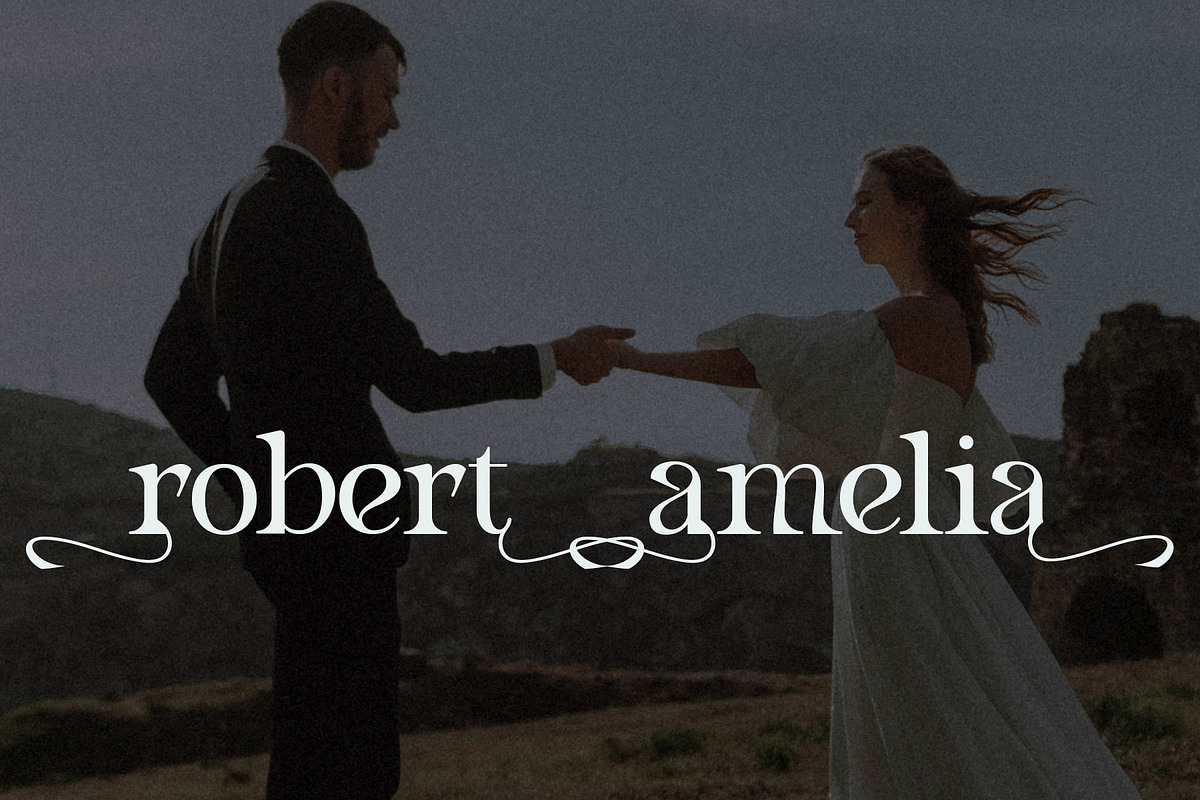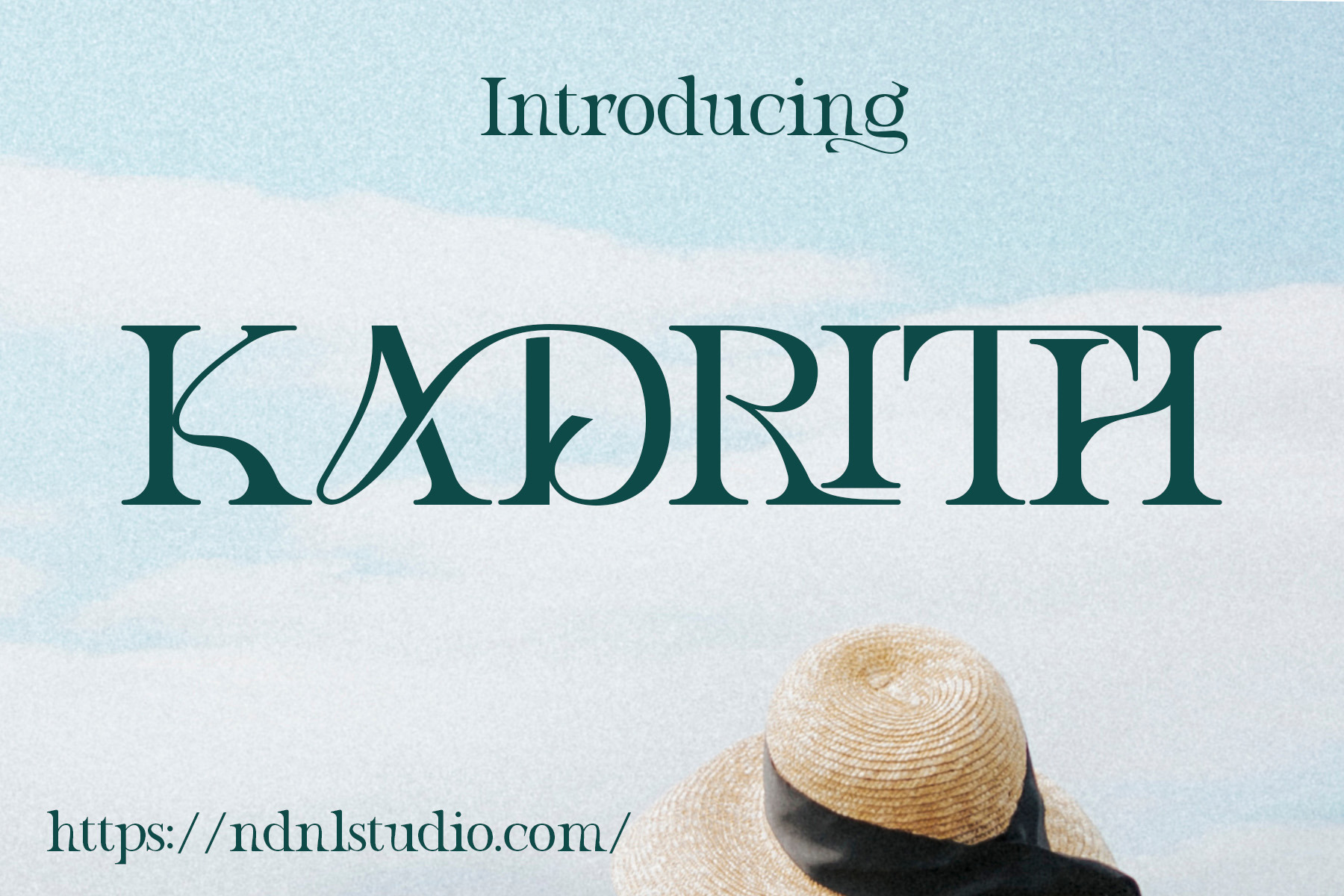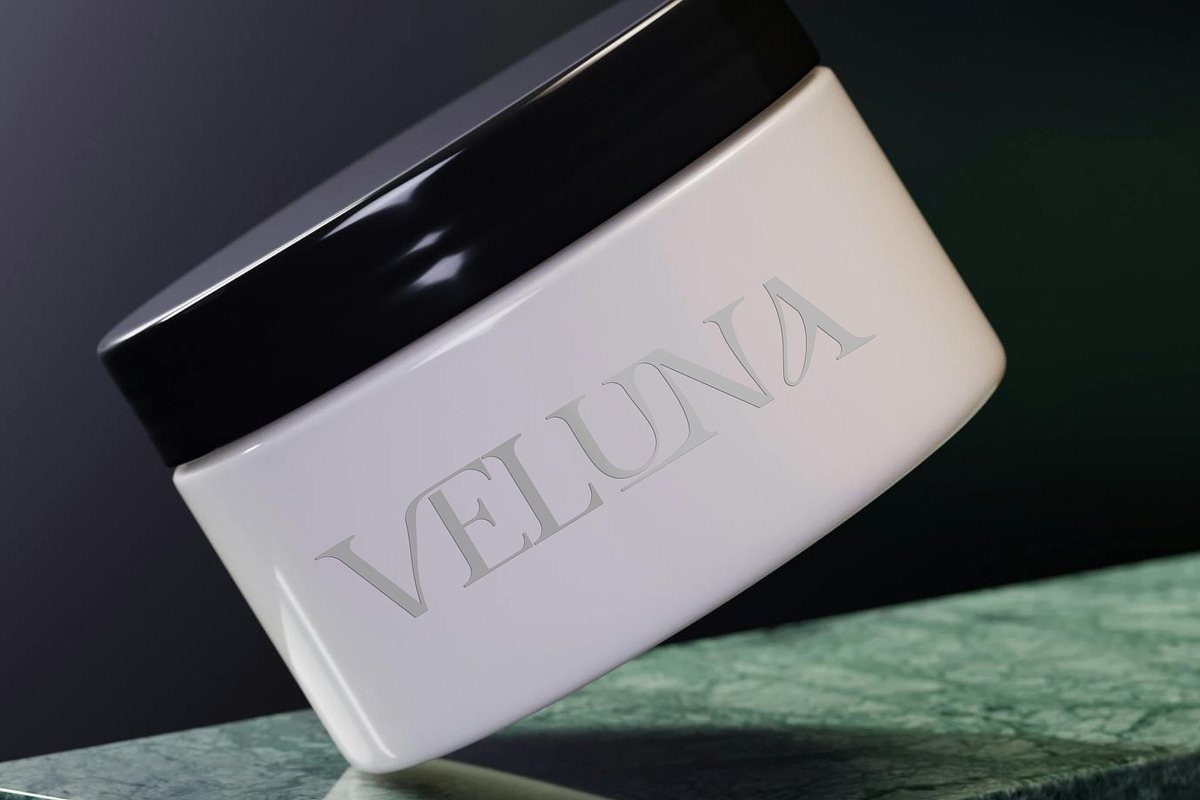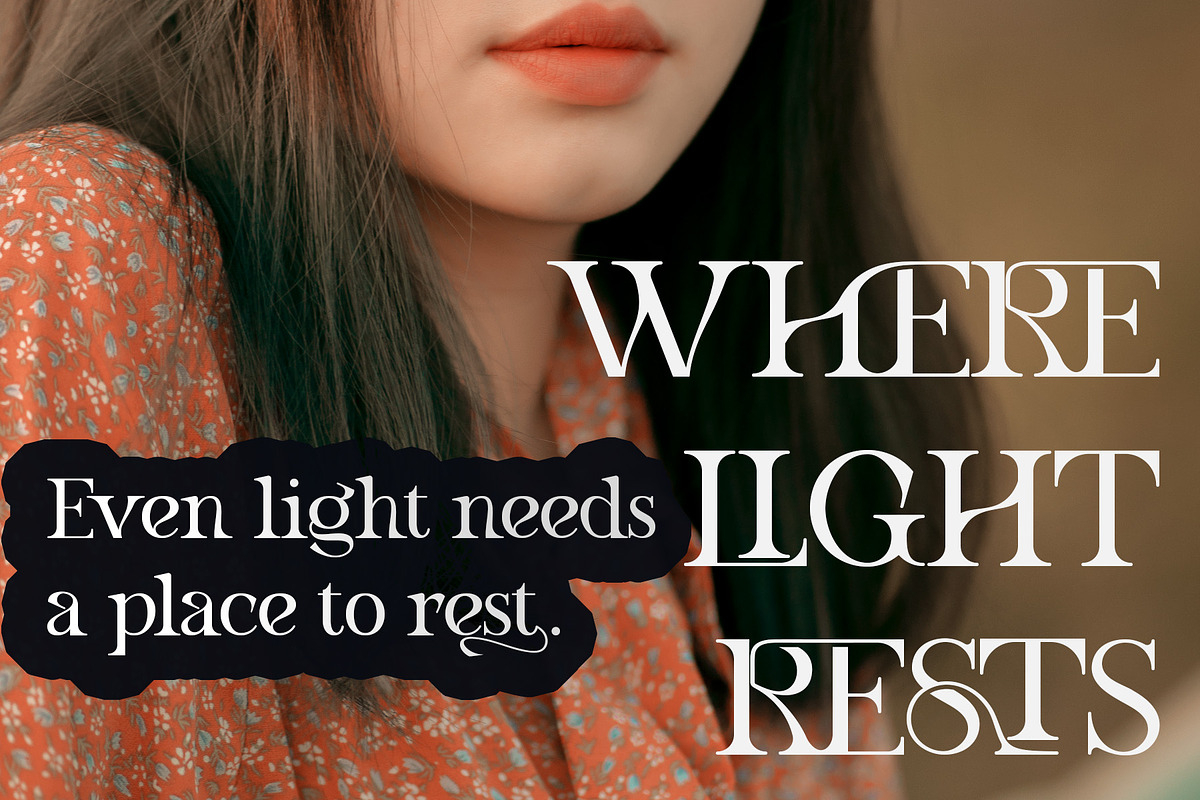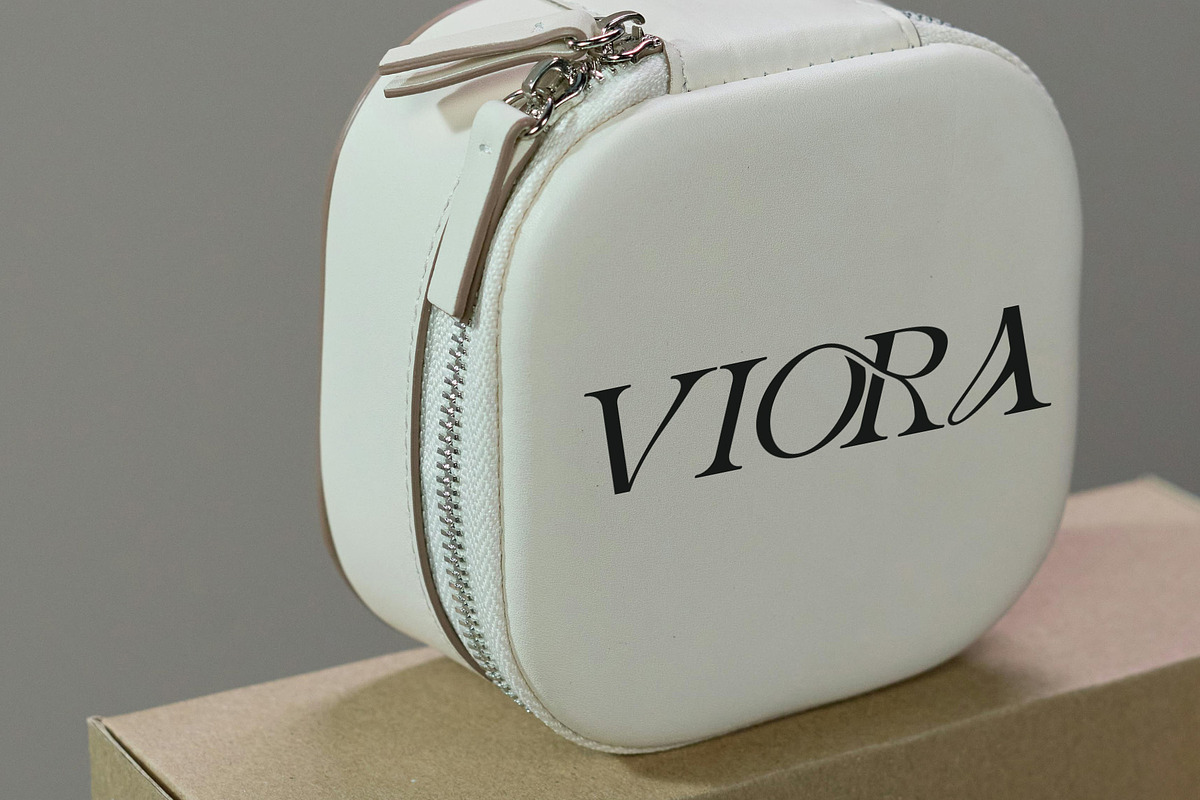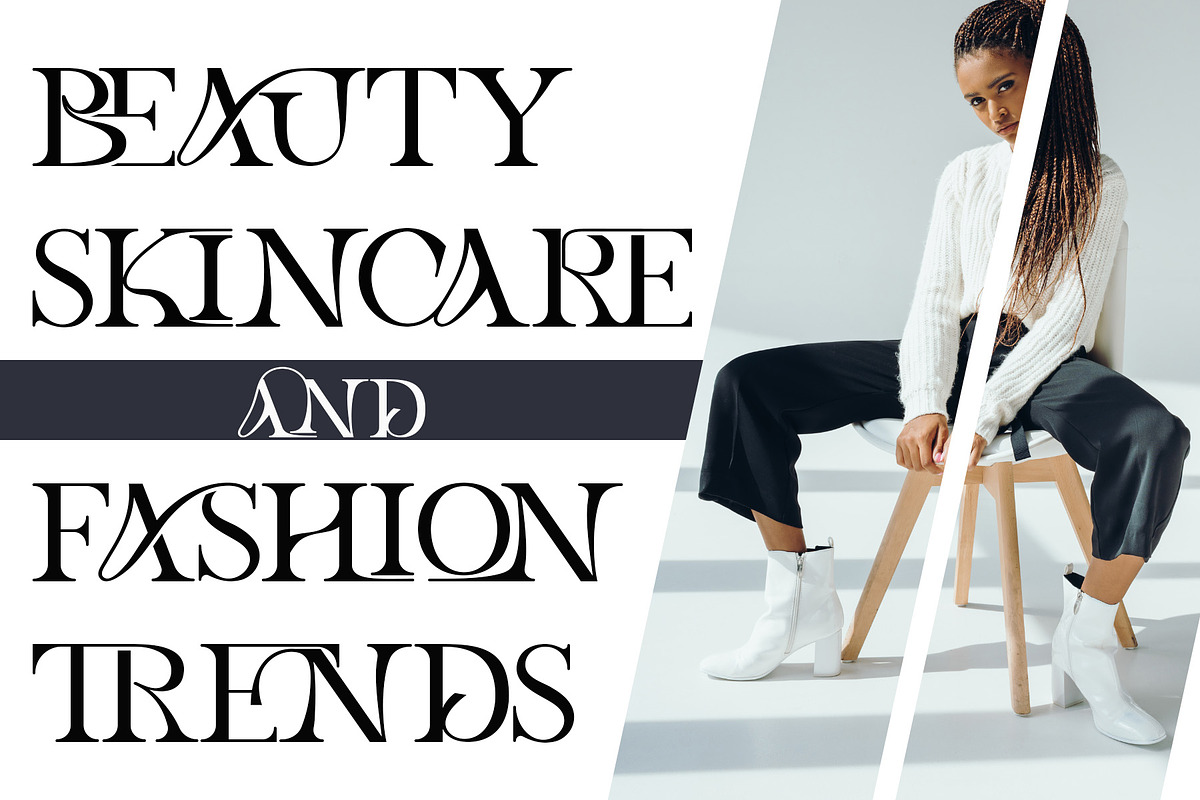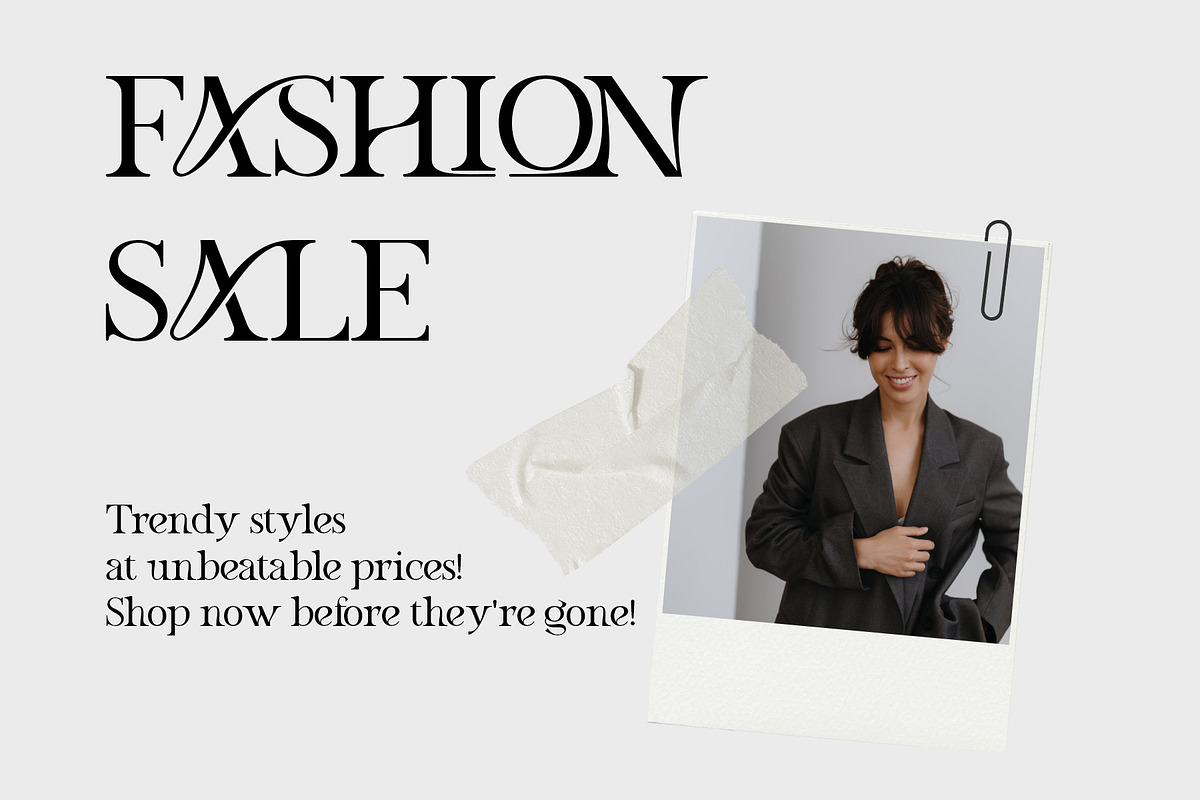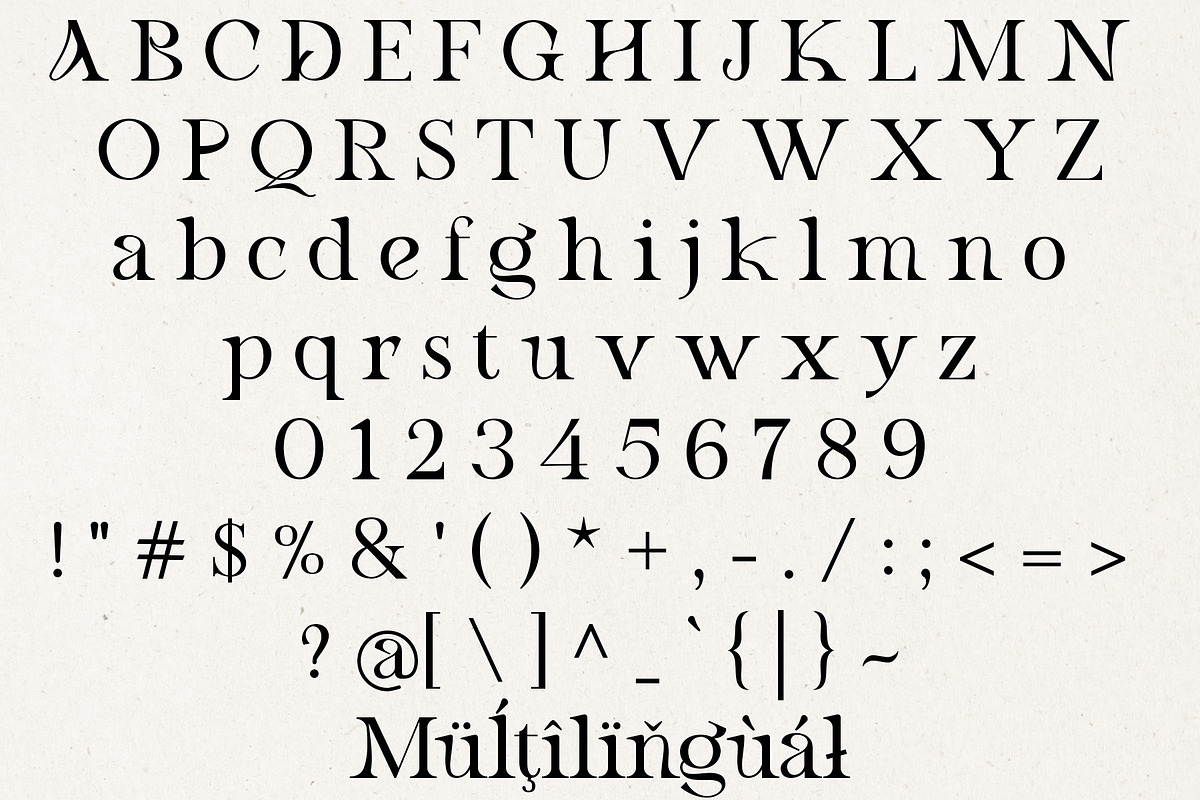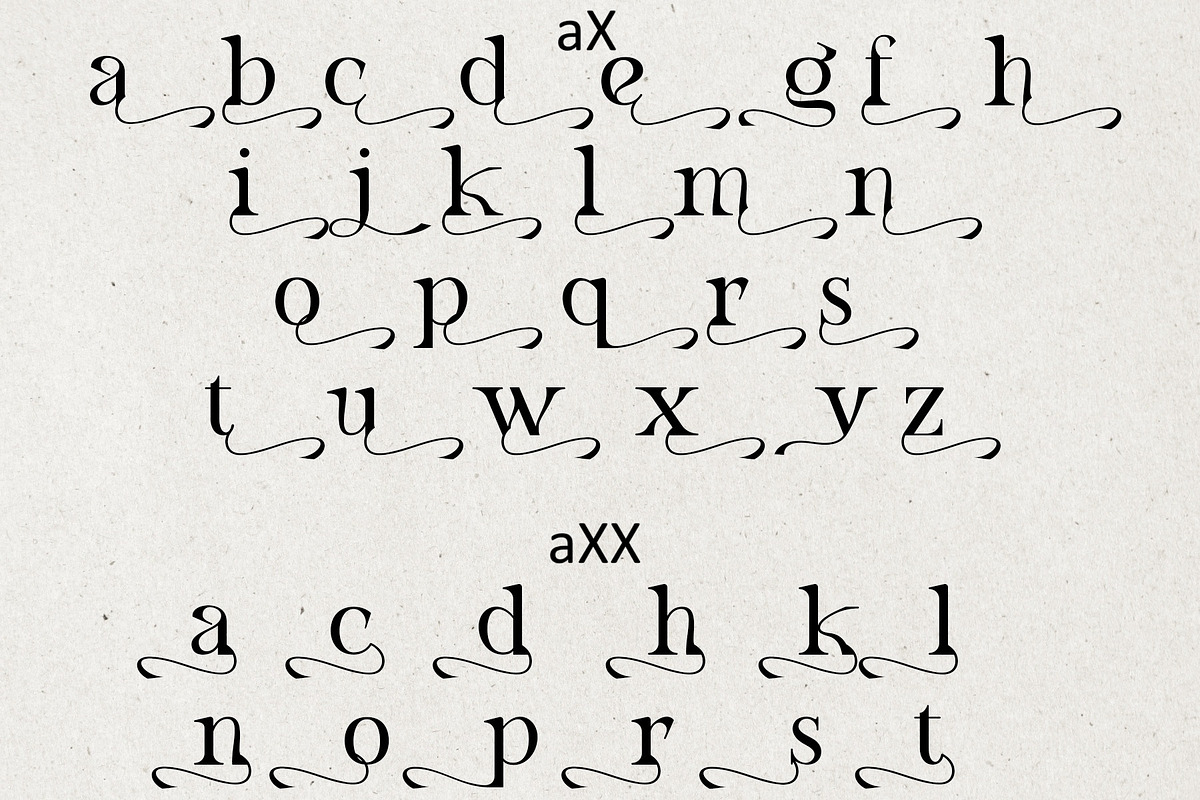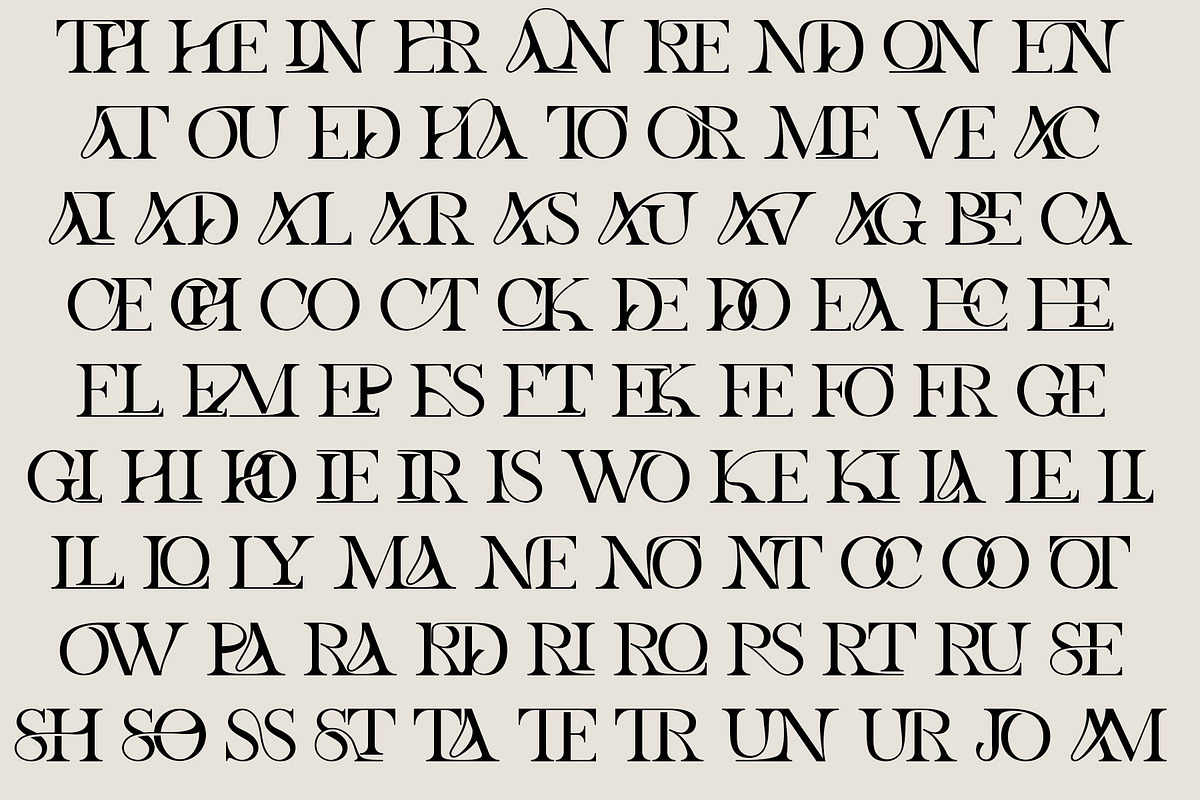
Kadrith - Serif Font
Introducing Kadrith!
Kadrith is a modern serif typeface that embodies both elegance and sophistication. With graceful curves and a timeless structure, it brings a distinctive balance between classic charm and contemporary flair. Perfect for branding, magazine covers, posters, and editorial designs where luxury and refinement are desired.
If the software you are using does not fully support OpenType features (such as Stylistic Alternates), you can still access the decorative characters of the font using the following method:
Examples:
- Axx → Decorative A (if available)
- aX → Decorative a (if available)
And also:
- AxX → Decorative A2 (if available)
- aXX → Decorative a2 (if available)
- aXXX → Decorative a3 (if available)
To separate ligatures: Insert the shortcut xXx between two characters.
- ab → axXxb → a b
- Character set A-Z